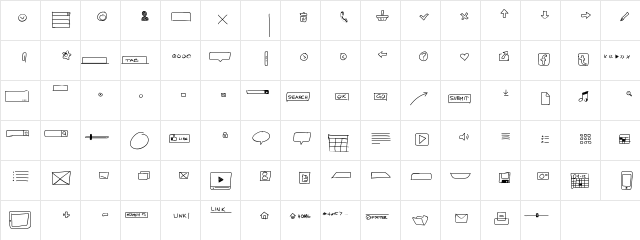
UIMockup Medium
Design Context for UIMockup Typeface
UIMockup is a composed and adaptable typeface that performs quietly and consistently across a wide range of design contexts.